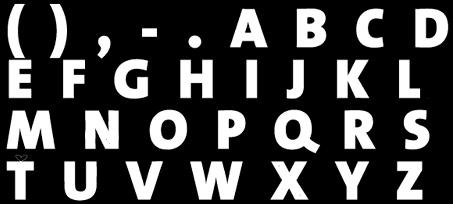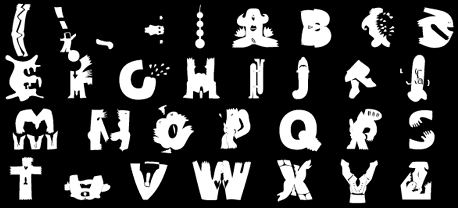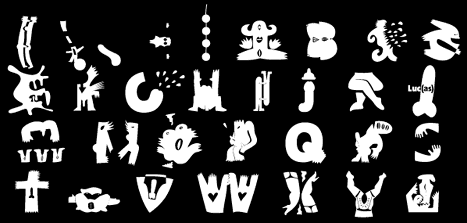
MoveMeTMEvery now and then Neville Brody asks a few friends to create an experimental typeface. This results in a new issue of FUSE (platform for experimental typography), with 5 fonts and posters.
FUSE 11 has pornography as theme. You animate letters to illustrations by moving the slider in FontCreator. Fontcreator is built into Adobe Illustrator and QuarkXPress (Xtension) and also in the latest versions of Adobe Type Manager. In November 1996 Luc(as) was invited to show his porno font and illustrations in the German television program "Liebe Sünde". MultipleMaster fonts contain two or more extremes. One extreme is a serious typeface, TheSans Black. The other extreme are more or less pornographic illustrations, based on the colourfull drawings in my sketchbooks. |